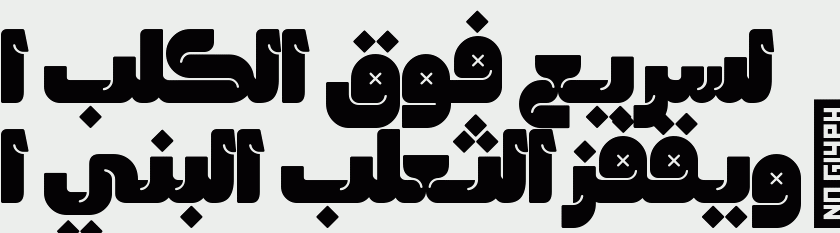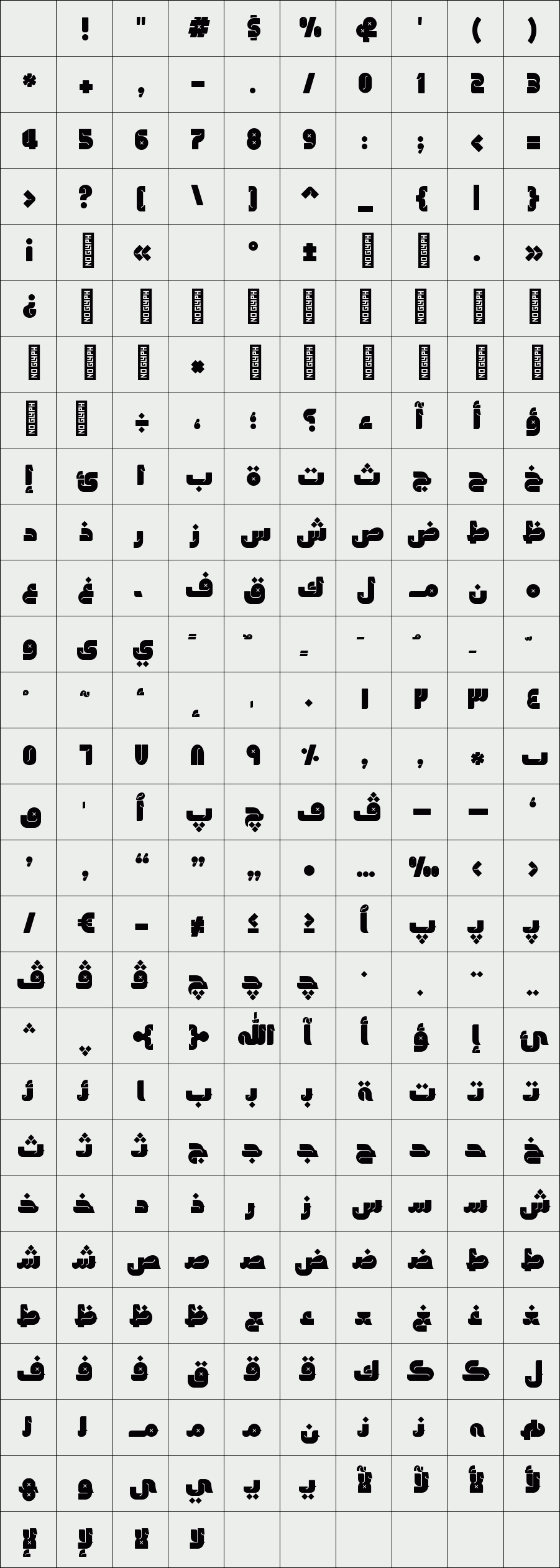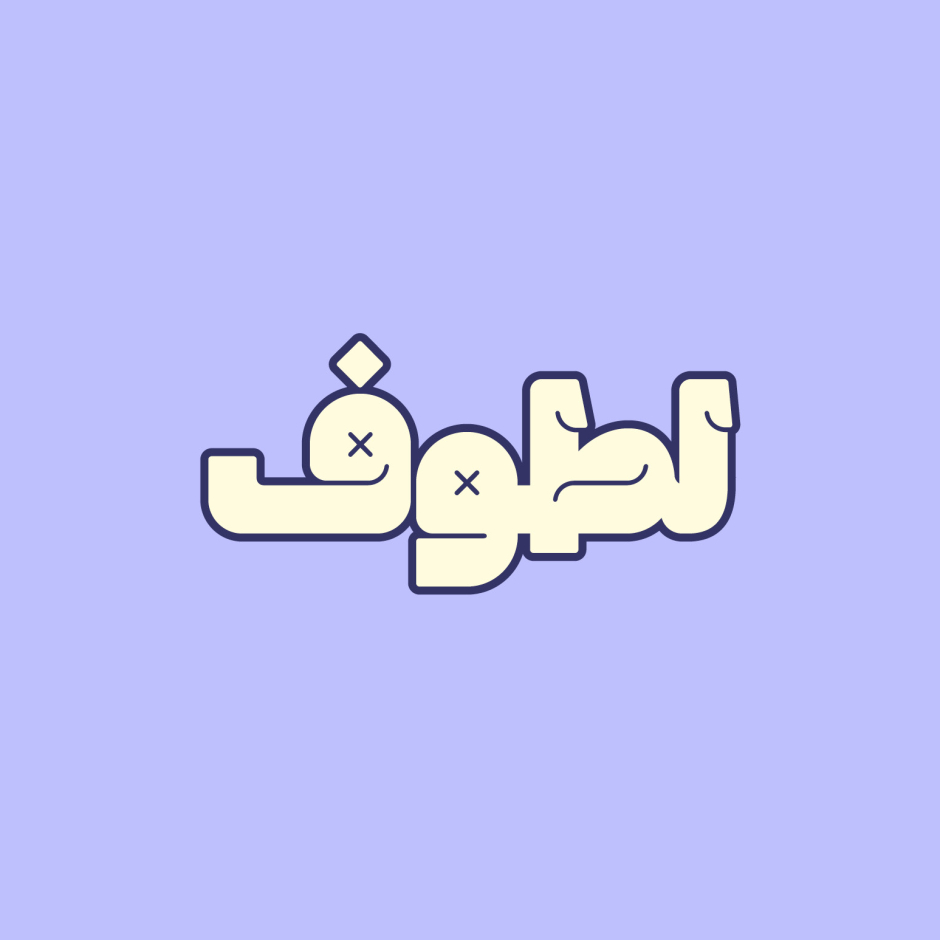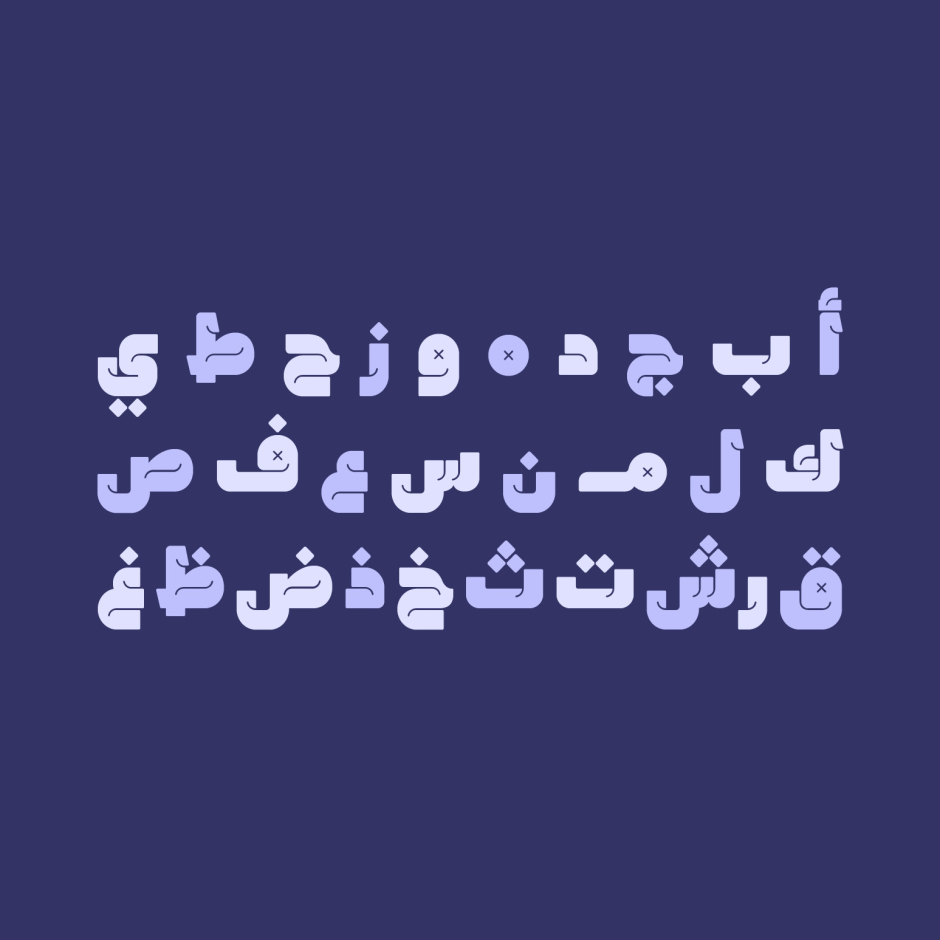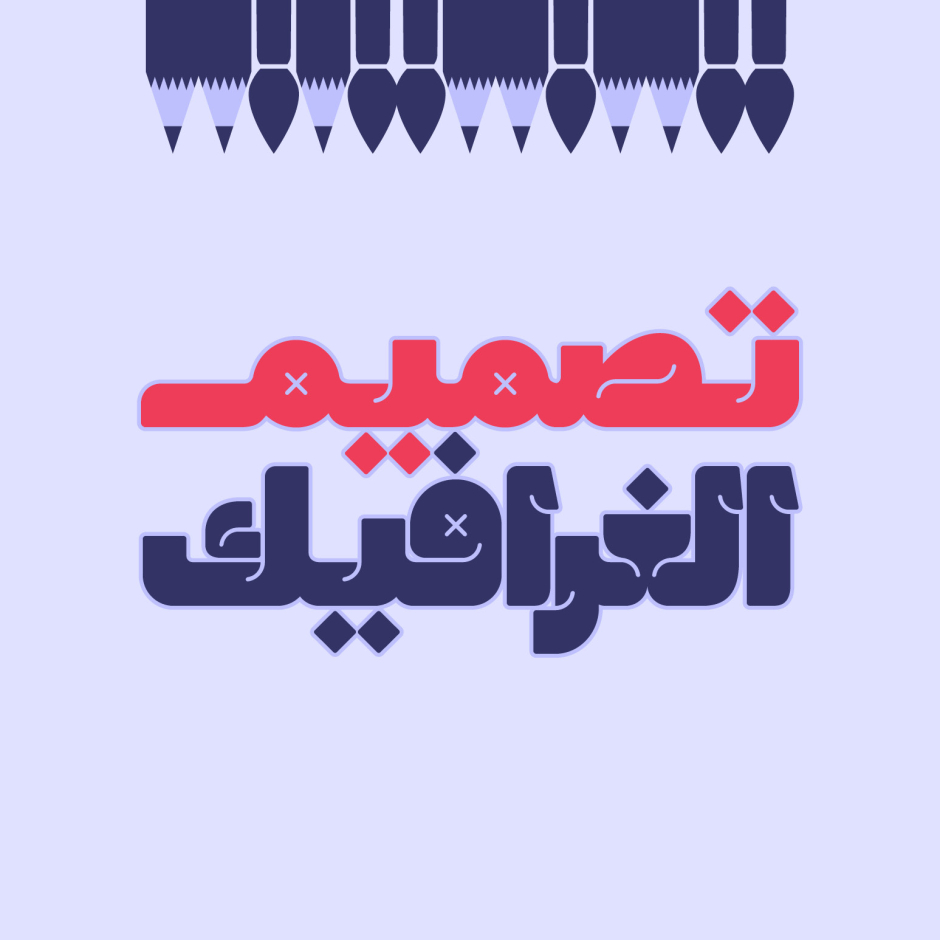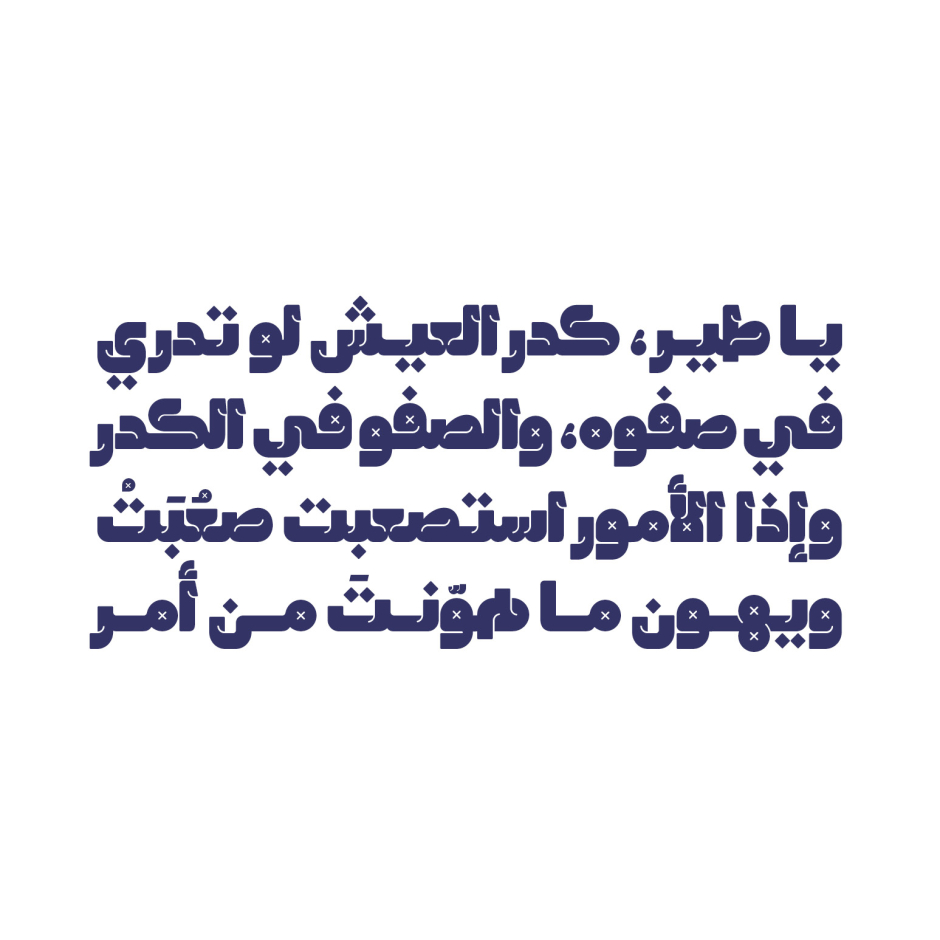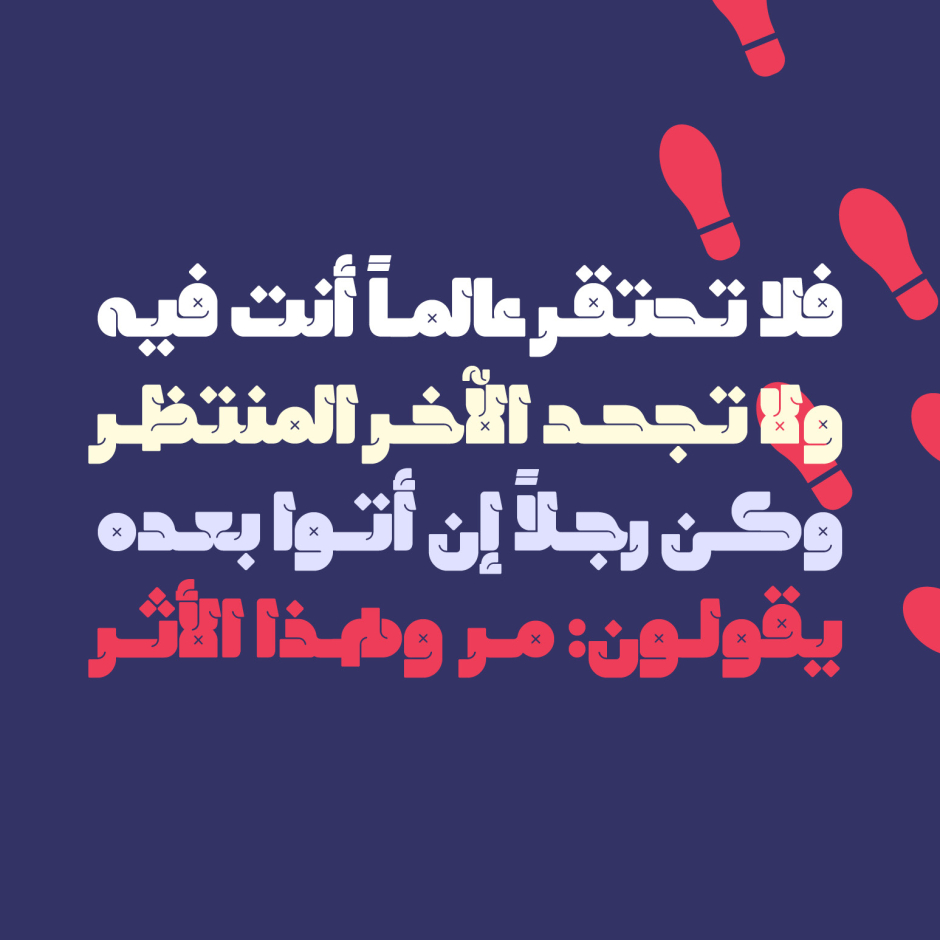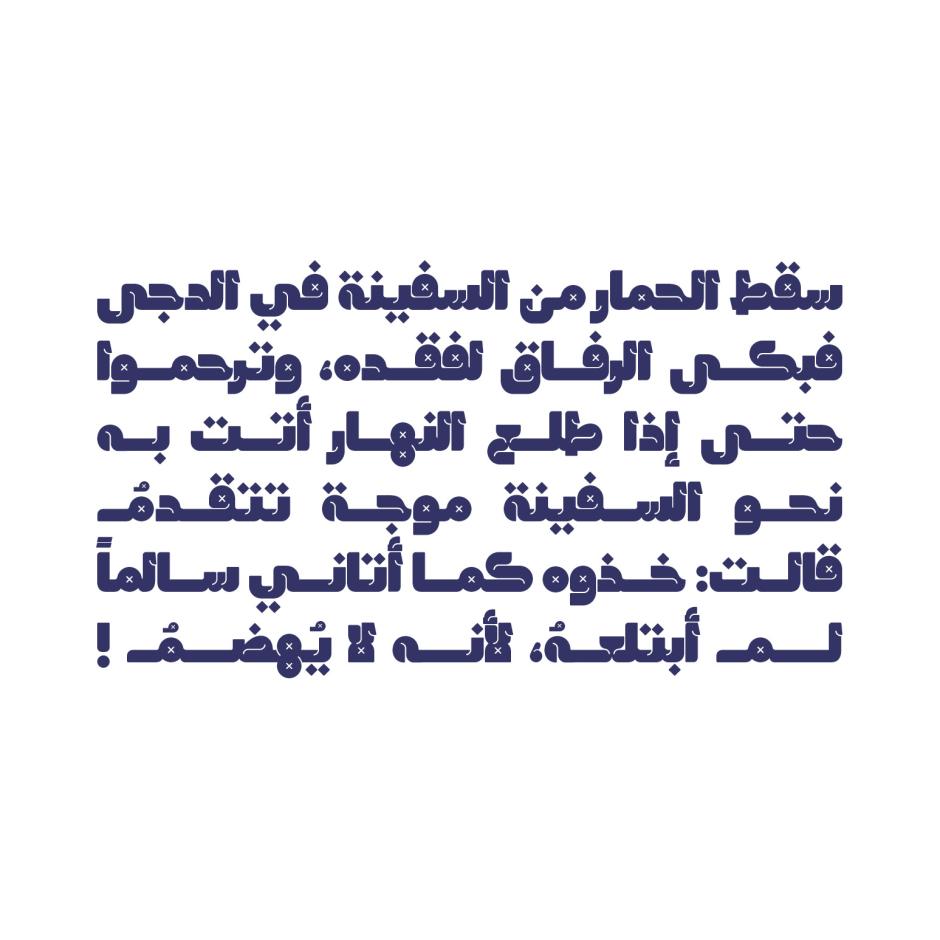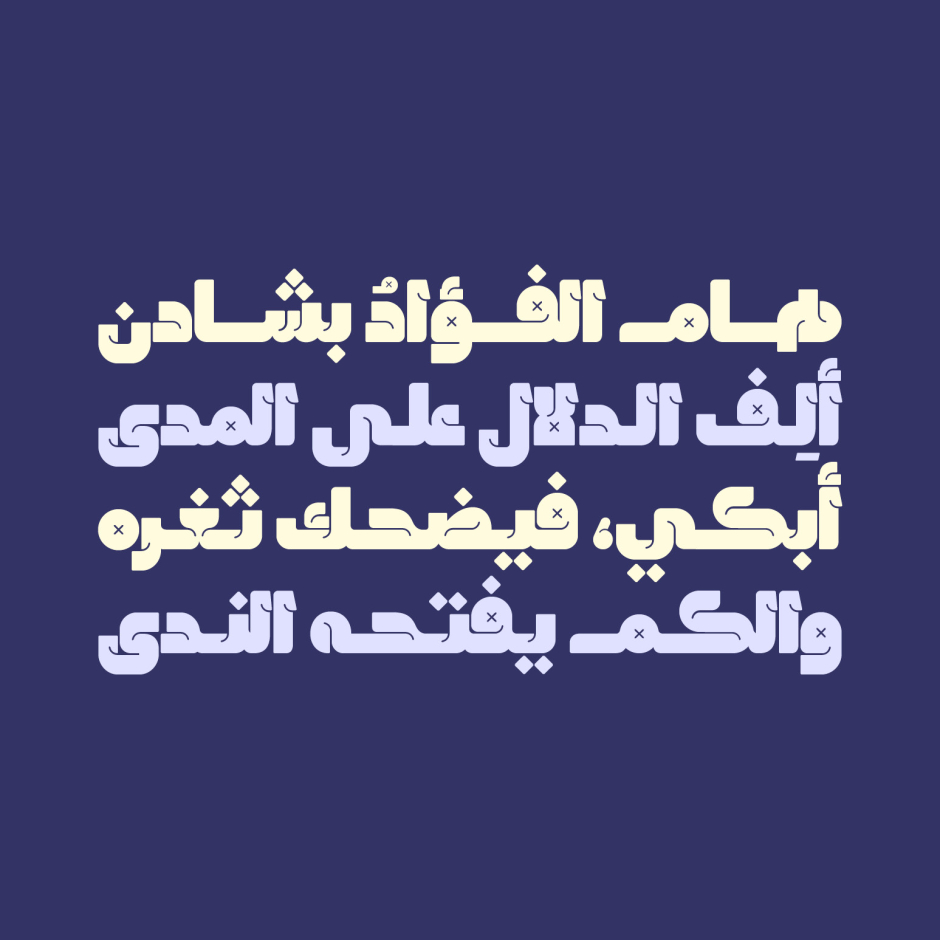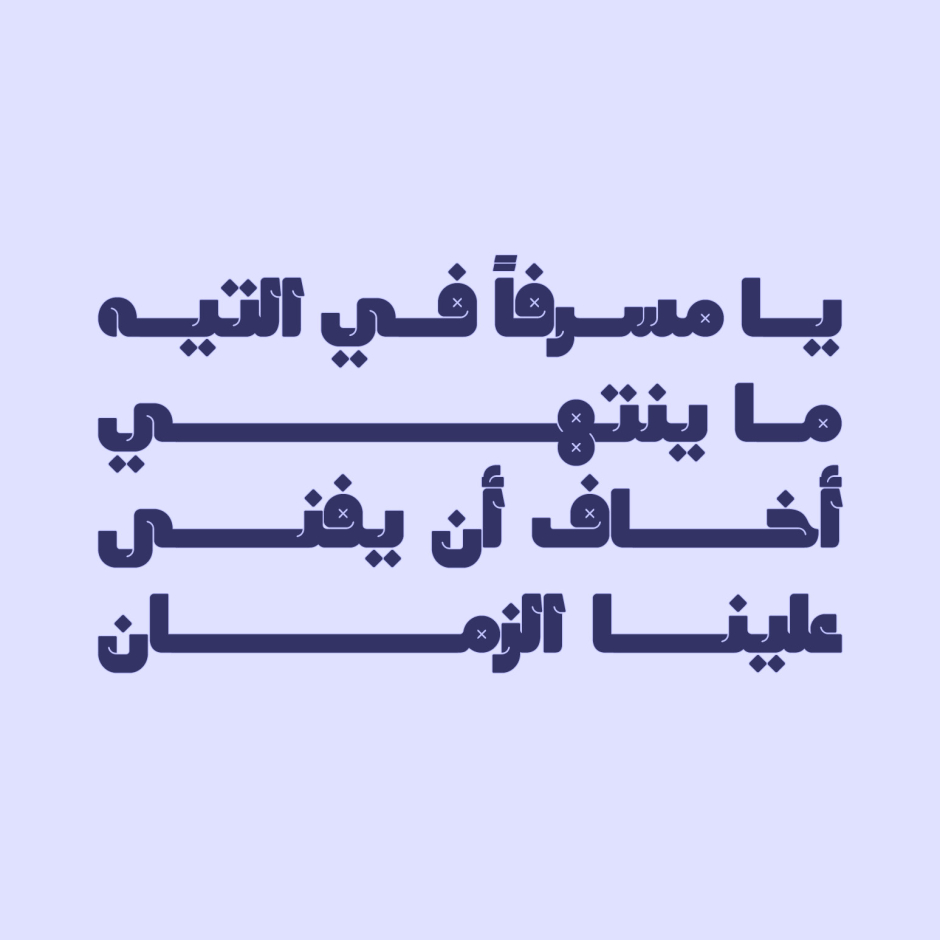
Lattouf
Lattouf is an Arabic display font that features a heavy structure with humorous style. The font is suitable for all modern projects including web, print and smart phone applications.